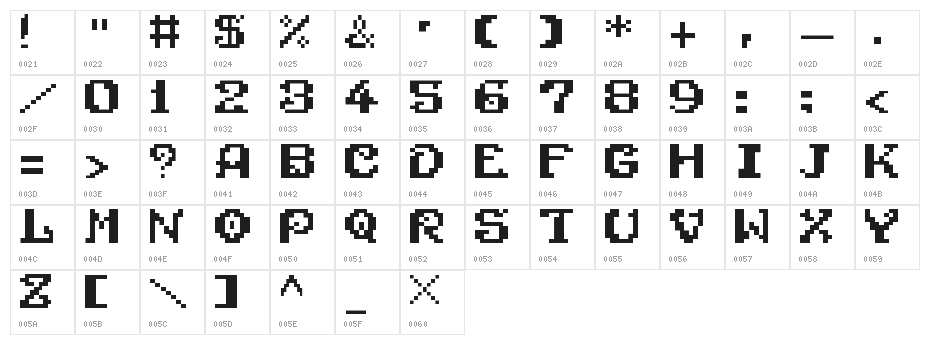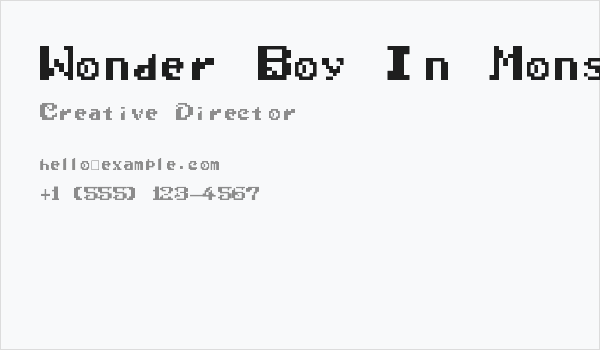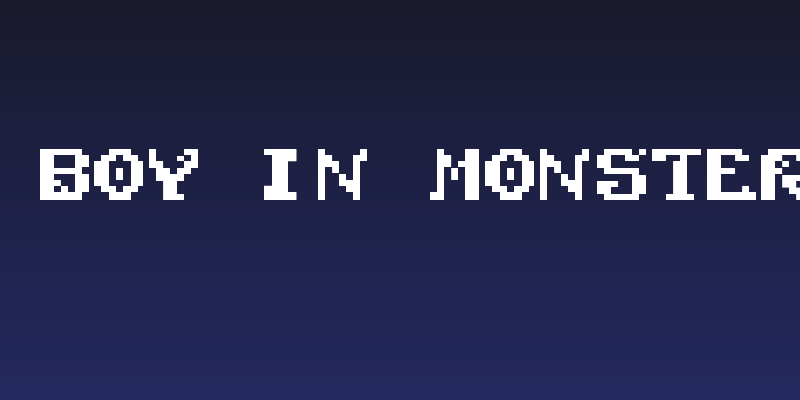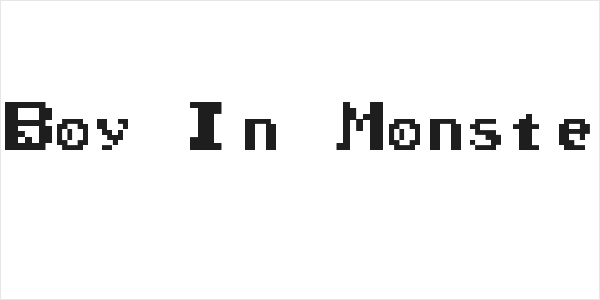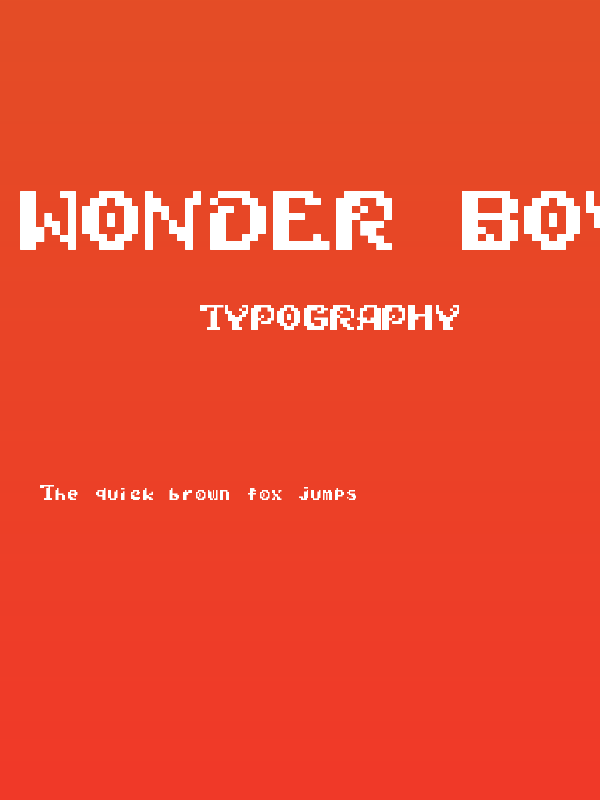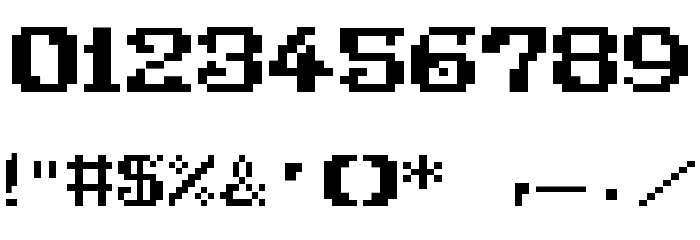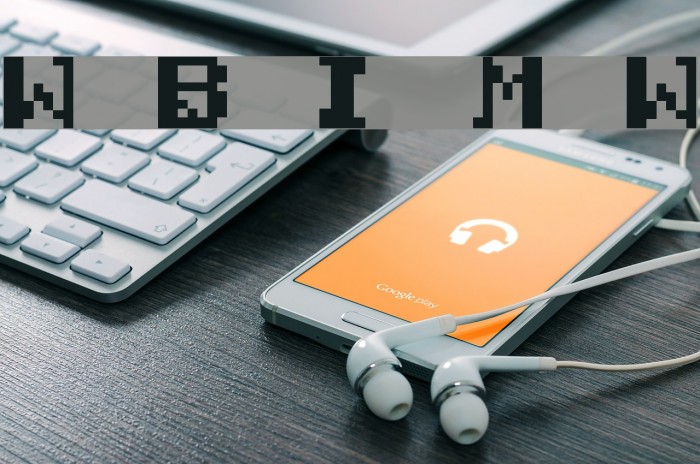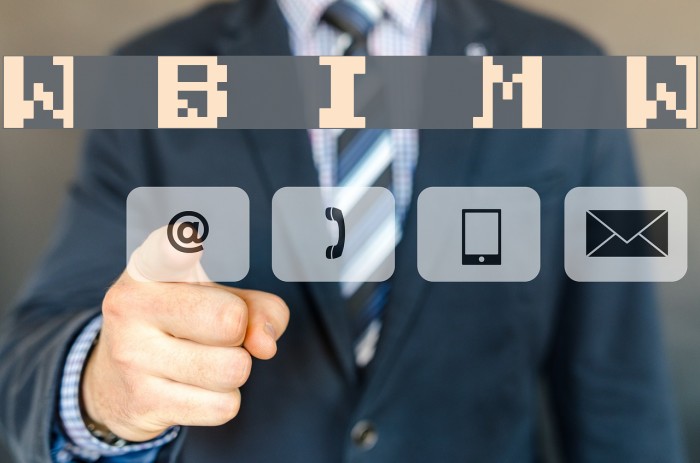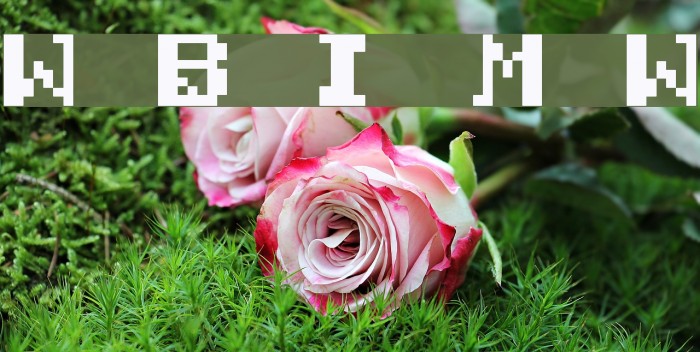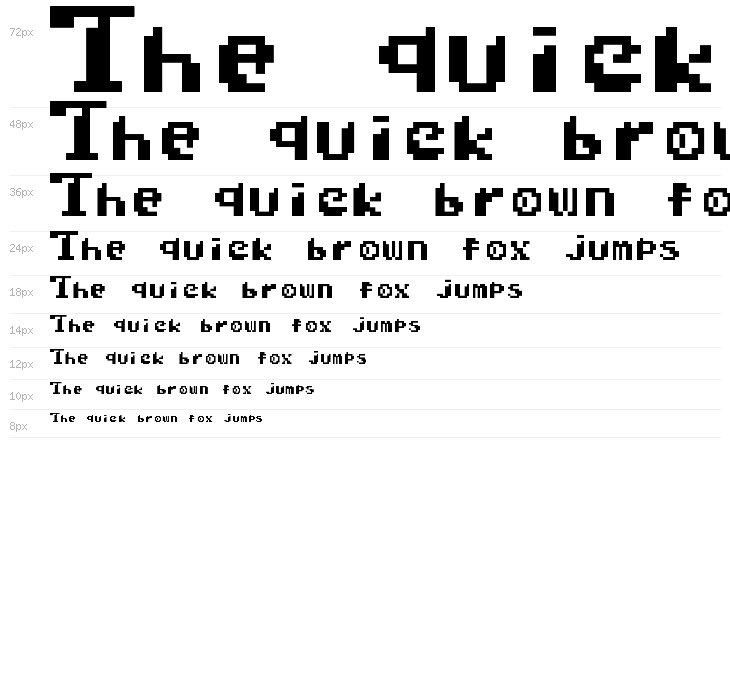
Wonder Boy In Monster World Font
Wonder Boy In Monster World Description
This font features a bold, pixelated style reminiscent of classic video game graphics. Each character is composed of blocky, square shapes that give it a retro, digital appearance. The uppercase and lowercase letters maintain a consistent height, contributing to a uniform look. Numbers and special characters follow the same pixelated design, ensuring a cohesive aesthetic throughout. The font's simplicity and nostalgic feel make it ideal for projects that aim to evoke a sense of vintage gaming or digital art.
| Overall Style | Vintage |
| Use Case | Logos, Headlines, Digital Art |
| Proposed Projects | Ideal for retro video game designs, digital art projects, and nostalgic branding. |